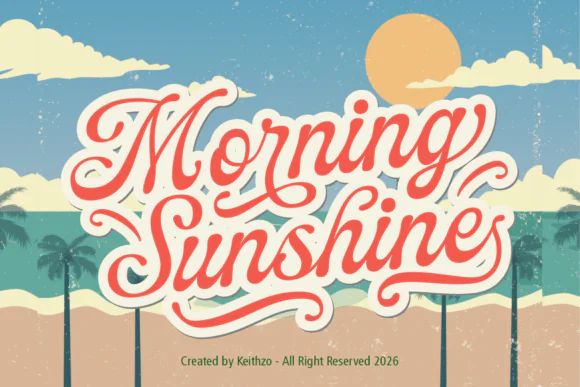
Create nostalgic, stylish, and timeless designs with Wonderful Vintages Font, a vintage script font inspired by the classic charm of 1950s and 1960s retro typography. With soulful curves, polished strokes, and a hand-lettered feel, this font brings old-school personality and elegant vintage energy to your creative projects.
Wonderful Vintages Font is perfect for vintage logos, traditional branding, product packaging, café and coffee shop designs, retro posters, labels, wedding invitations, apparel graphics, t-shirt designs, social media content, stickers, mugs, wall art, and printable designs. Its smooth retro lines also make it suitable for Cricut, Silhouette, cutting projects, and clean vintage print layouts.
This font includes uppercase letters, lowercase letters, numerals, symbols, and multilingual support, making it useful for both local and global creative projects. Whether you are designing nostalgic product packaging, classic brand identity, vintage apparel, or retro-inspired digital artwork, Wonderful Vintages Font adds warmth, charm, and a beautiful old-time feel to your typography.
Wonderful Vintages Font is a strong choice for designers, crafters, small business owners, and digital product sellers who want to create elegant retro designs with classic typography, vintage warmth, and timeless appeal.